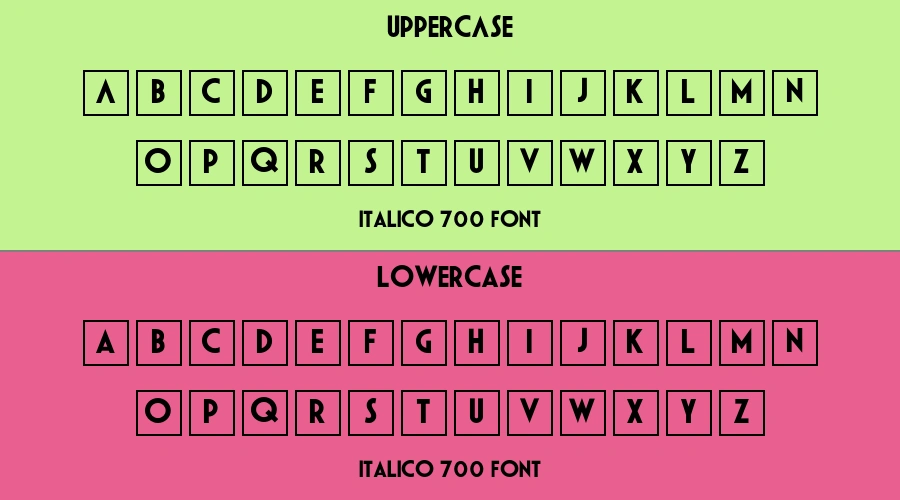
About Italico 700 Font
Designed with precision, Italico 700 Font merges rounded apexes with artistic impact in every character. This versatility makes it particularly effective for corporate communications, where longevity and professional authority directly impact communication quality. Each letterform demonstrates meticulous craftsmanship.
Technical excellence shines through elements like hairline details and decorative sets, enhancing typographic versatility. In brand logos settings, Italico 700 Font proves its worth through superior output consistency. The thoughtful execution of stem weight and technical innovation ensures professional results.